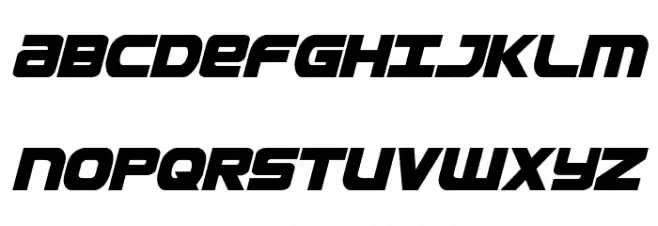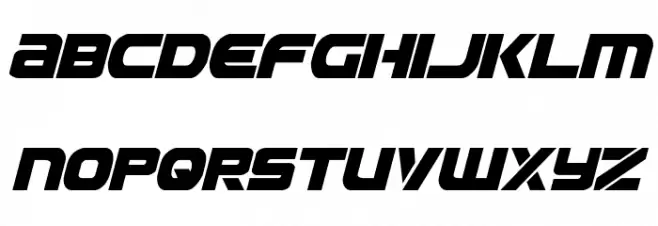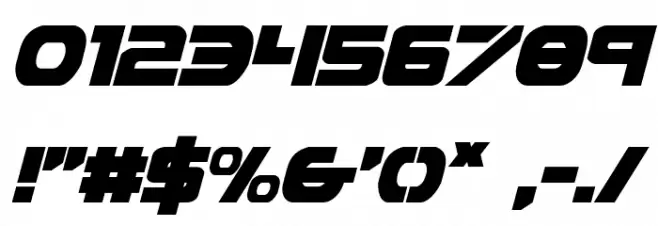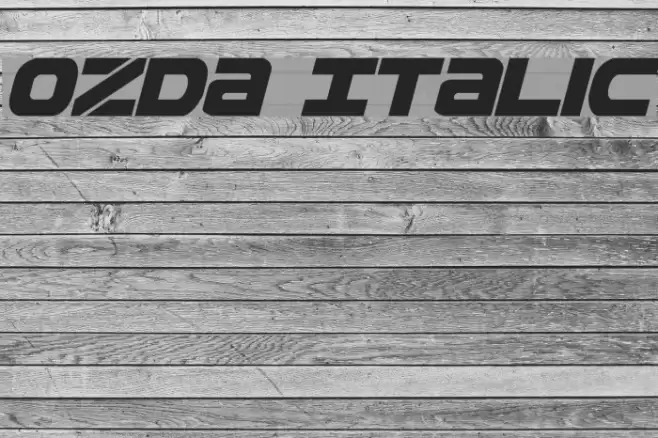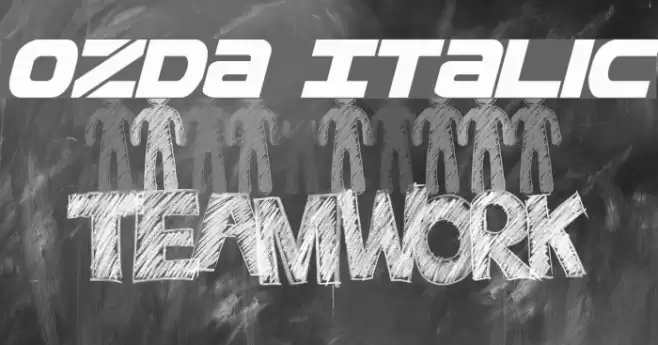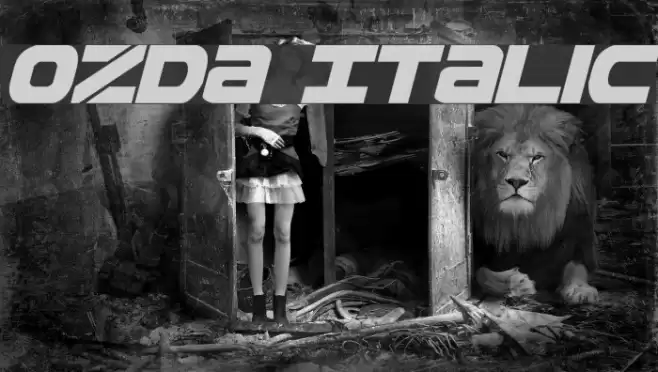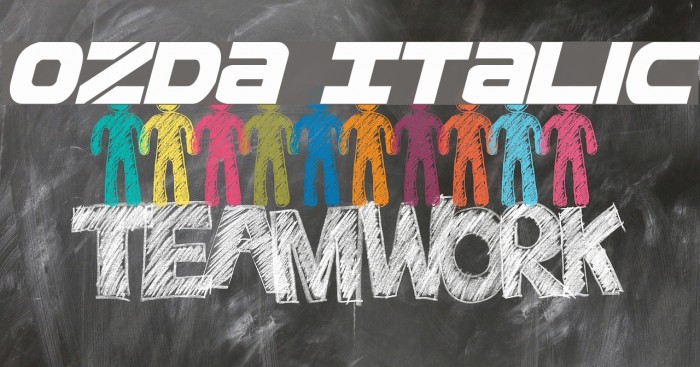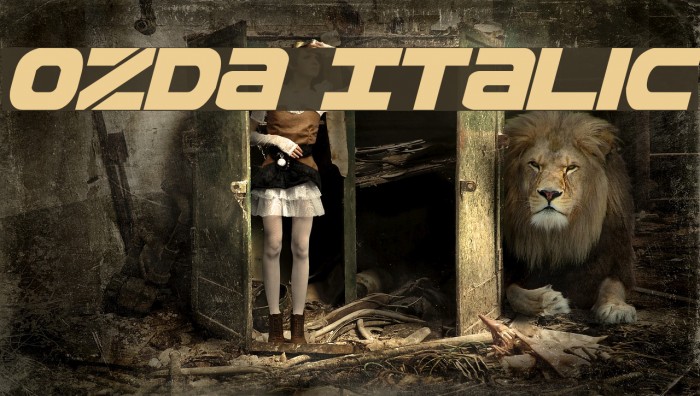
Ozda Italic
This font features a bold, italicized style with a futuristic and dynamic appearance. The characters are designed with sharp angles and a forward-leaning posture, giving a sense of motion and speed. The uppercase and lowercase letters maintain a consistent style, with a strong emphasis on geometric shapes. The numerals and special characters follow the same aesthetic, ensuring uniformity across all glyphs. This font is ideal for projects that require a modern and energetic look, such as technology branding, sports team logos, or sci-fi themed designs.
A bold, italicized font with a futuristic and dynamic style.
- Proposed Projects: Ideal for technology branding, sports logos, and sci-fi themed designs.
- Use Case: Logos, Headlines